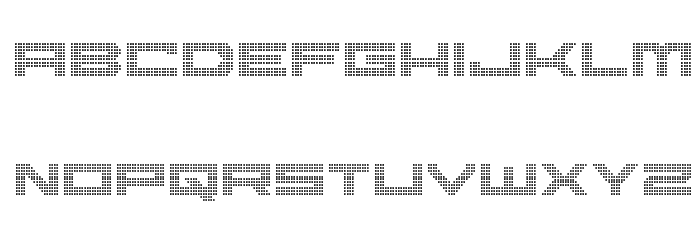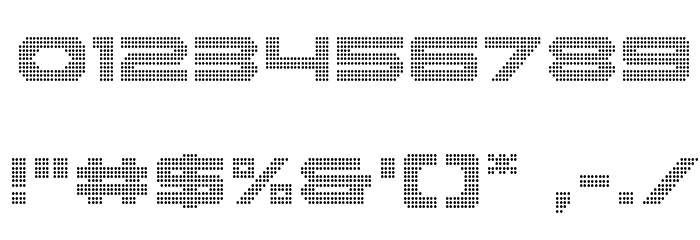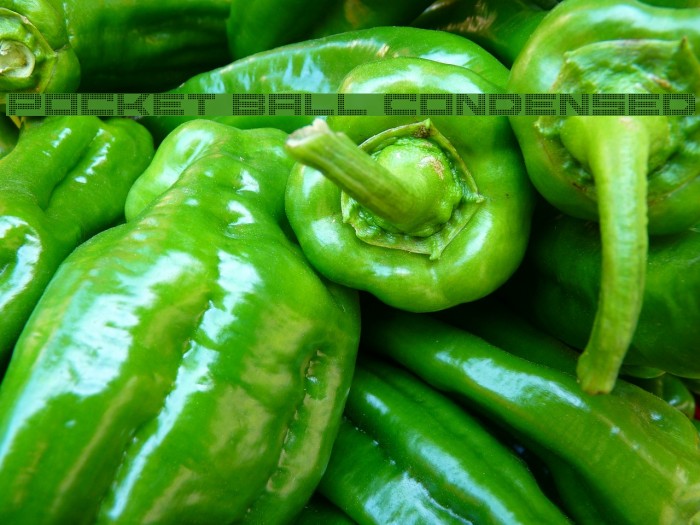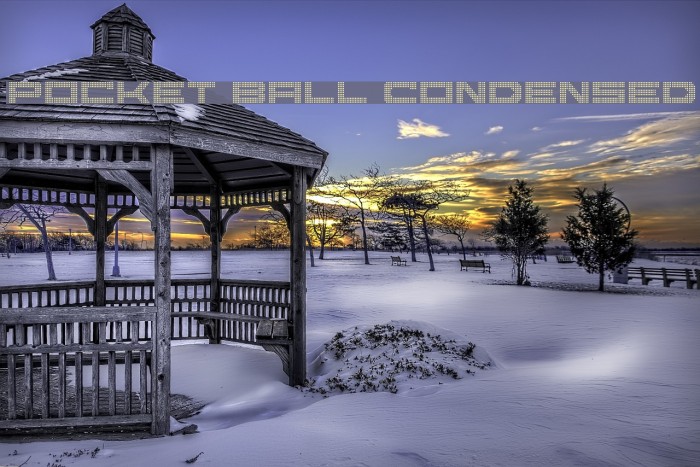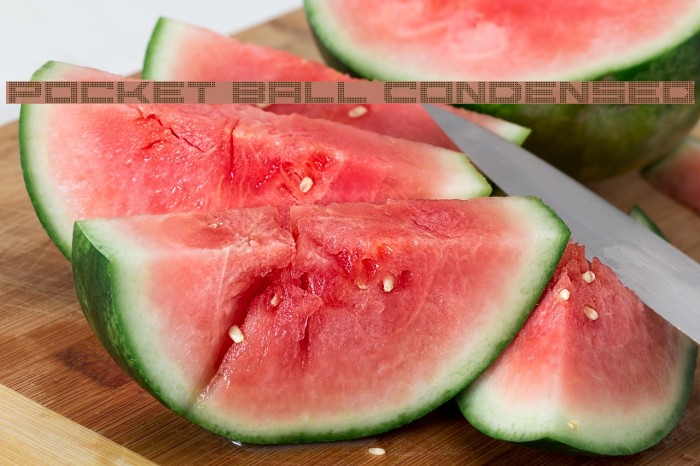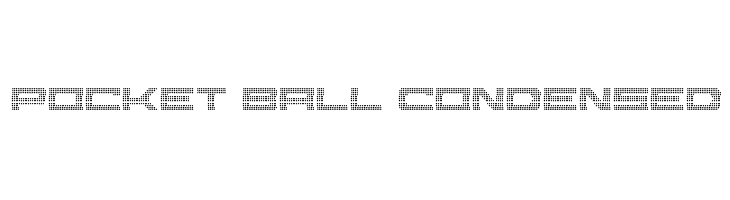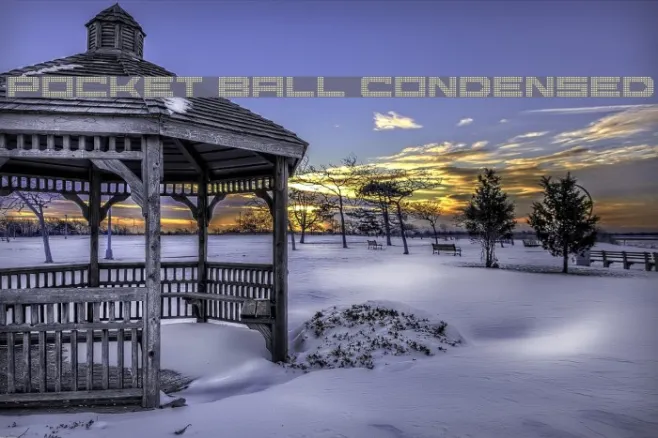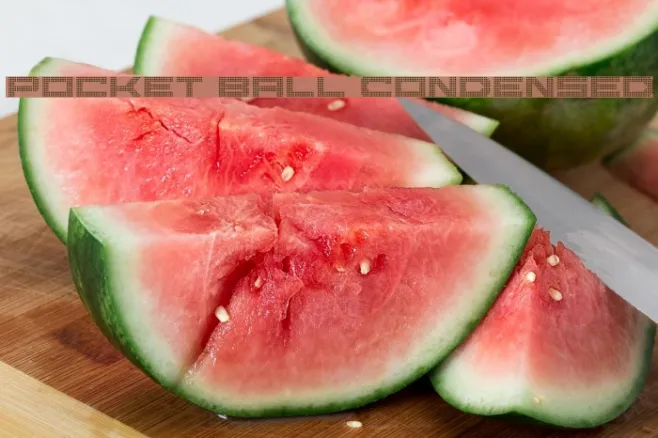
Pocket Ball Condensed Font
This font features a unique dotted pattern that forms each character, creating a modern and digital aesthetic. The characters are constructed with evenly spaced dots, giving them a pixelated appearance. This design choice makes it ideal for projects that require a futuristic or tech-inspired look. The uppercase and lowercase letters maintain a consistent style, with clear geometric shapes that are easy to read. Numbers and special characters follow the same design principle, ensuring uniformity across all glyphs. The font's condensed width allows for efficient use of space, making it suitable for headlines or display purposes where space is limited.
A modern, dotted font with a digital, pixelated style.
- Proposed Projects: Ideal for tech-themed projects, digital displays, futuristic branding, or any design needing a modern, tech-inspired look.
- Use Case: Headlines, Logos, Digital displays